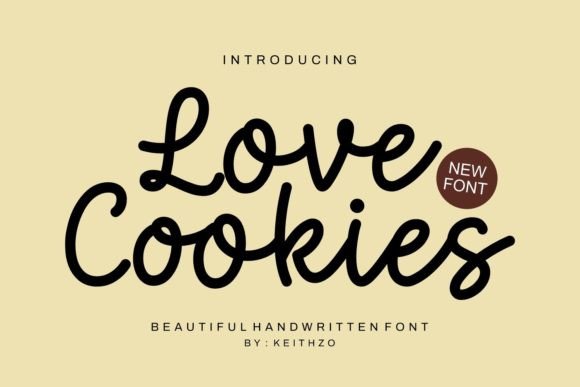
Looking for the best font for your baby banner? Look no further than Love Cookies, the newest addition to the 7NTypes font family. Created by Keithzo, this script font is a perfect blend of sweetness and flow, making it the ideal choice for any project that needs to convey a sense of warmth and love.
What sets Love Cookies apart from other fonts is its harmonious and balanced ligatures style, which adds a touch of elegance and sophistication to any design. Whether you're creating invitations, announcements, or anything in between, this font is sure to make your message stand out.
One of the best things about Love Cookies is that it's PUA encoded, which means you can access all glyphs and swashes without any restrictions. This makes it easy to create a unique and personalized design that truly reflects your style and personality.
But Love Cookies isn't just for baby banners - it's also perfect for a wide range of crafty ideas. Use it to create labels, logos, branding, and more. With its flowing script and eye-catching curves, Love Cookies is sure to become your go-to font for all your creative projects.